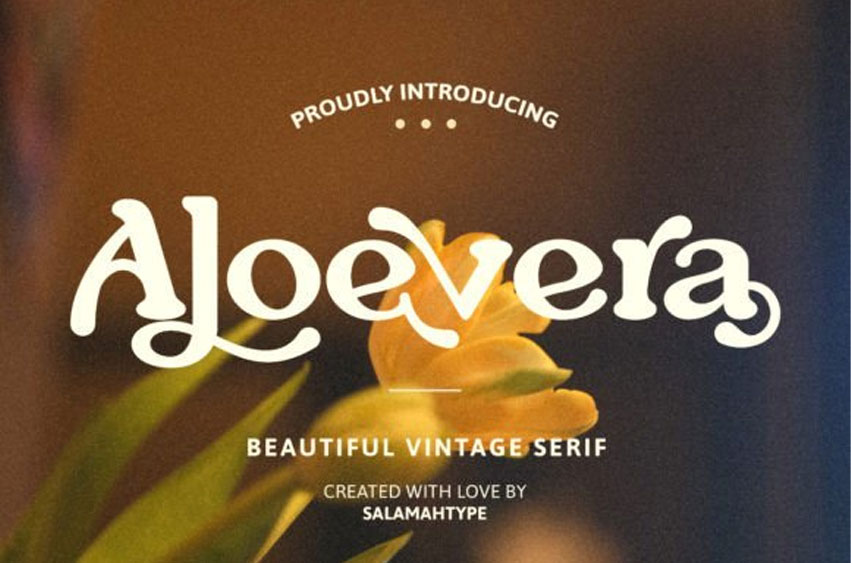
Aloe Vera Font
Aloe Vera Font is an elegant, retro, groovy and modern serif font with ligatures and alternates. This font is perfect for your branding projects, logos, wedding invitations, quotes, magazines, posters, merchandise, and more.